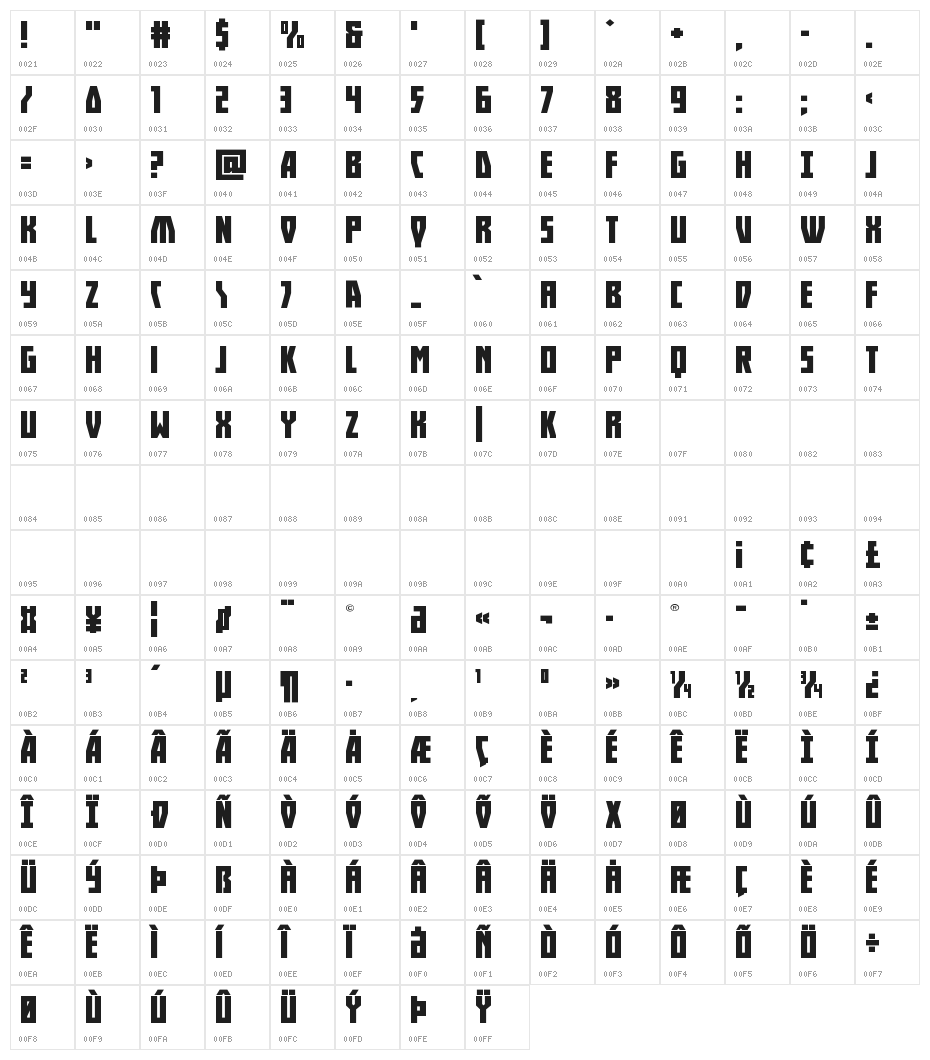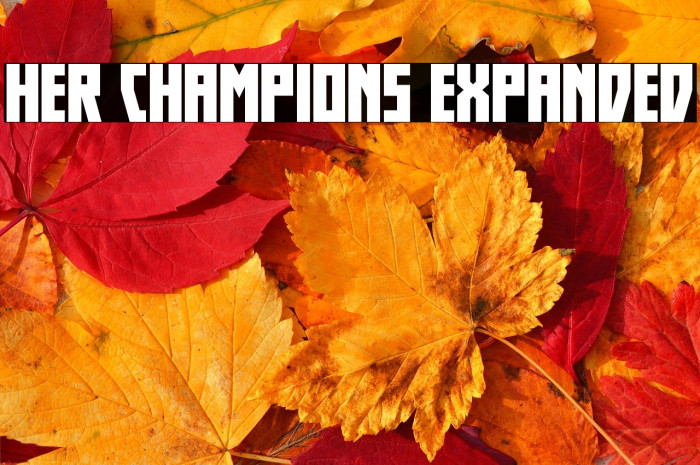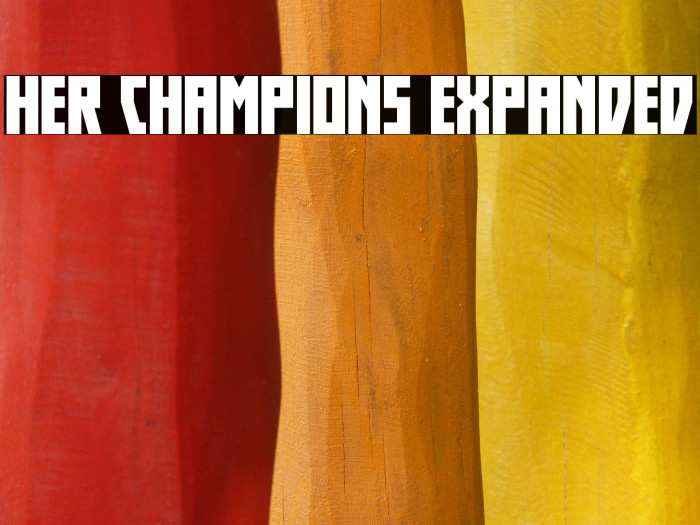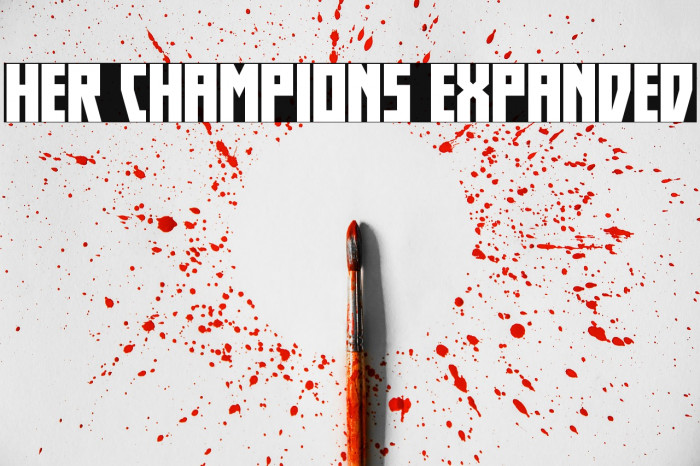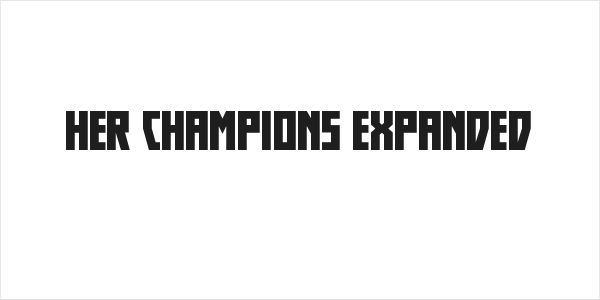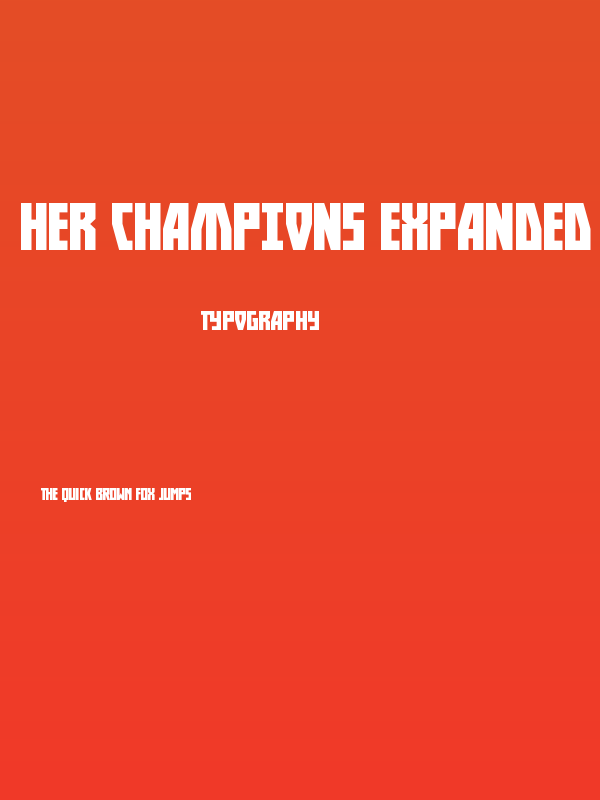
Her Champions Expanded Font
Her Champions Expanded Description
This font features a bold and geometric style with strong, angular lines and a blocky appearance. The uppercase letters are particularly striking, with sharp edges and a uniform height that creates a cohesive and powerful look. The numbers and special characters maintain this bold aesthetic, ensuring consistency across all characters. The overall design is modern and impactful, making it suitable for attention-grabbing headlines or branding materials. The font's expanded width allows for a commanding presence, while the tight character spacing enhances its boldness.